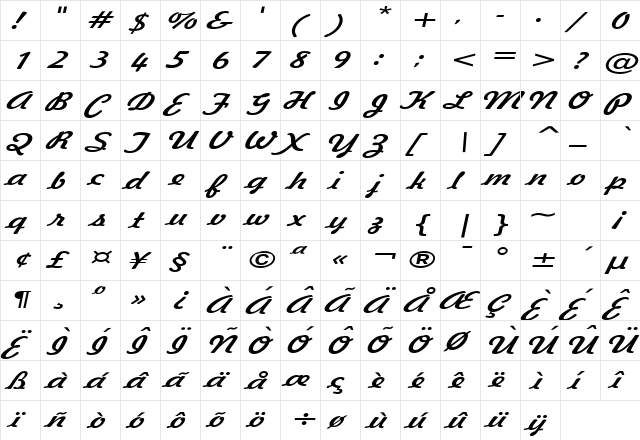
Jott 44 Extended Italic
Design Context for Jott 44 Extended Typeface
Jott 44 Extended is a composed and adaptable typeface that performs quietly and consistently across a wide range of design contexts. The dynamic lean of this cut emphasises speed and emphasis in any layout.
Pro Tip: Use Jott 44 Extended for emphasis, pull quotes, and subheadings where its slanted energy can add rhythm to the layout.